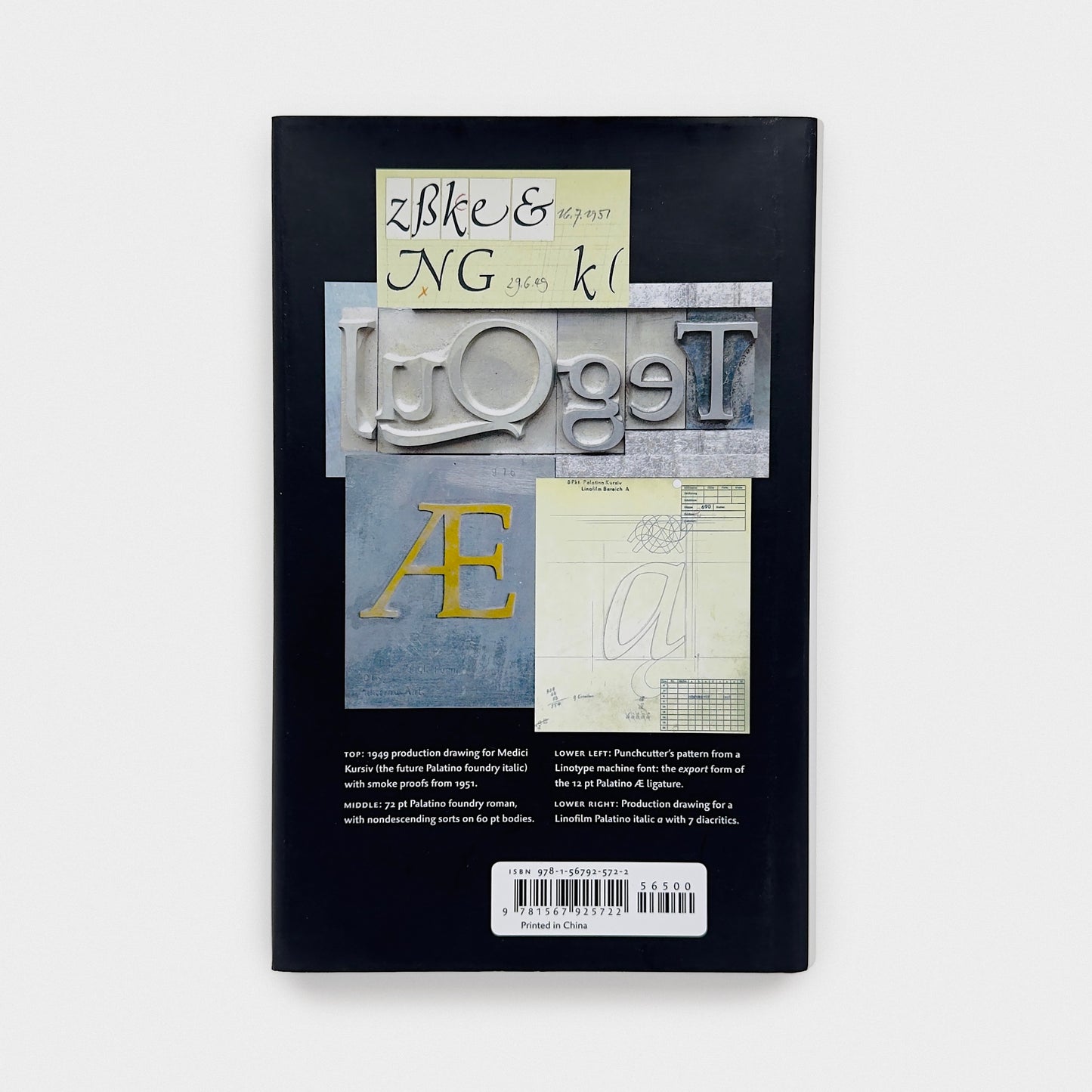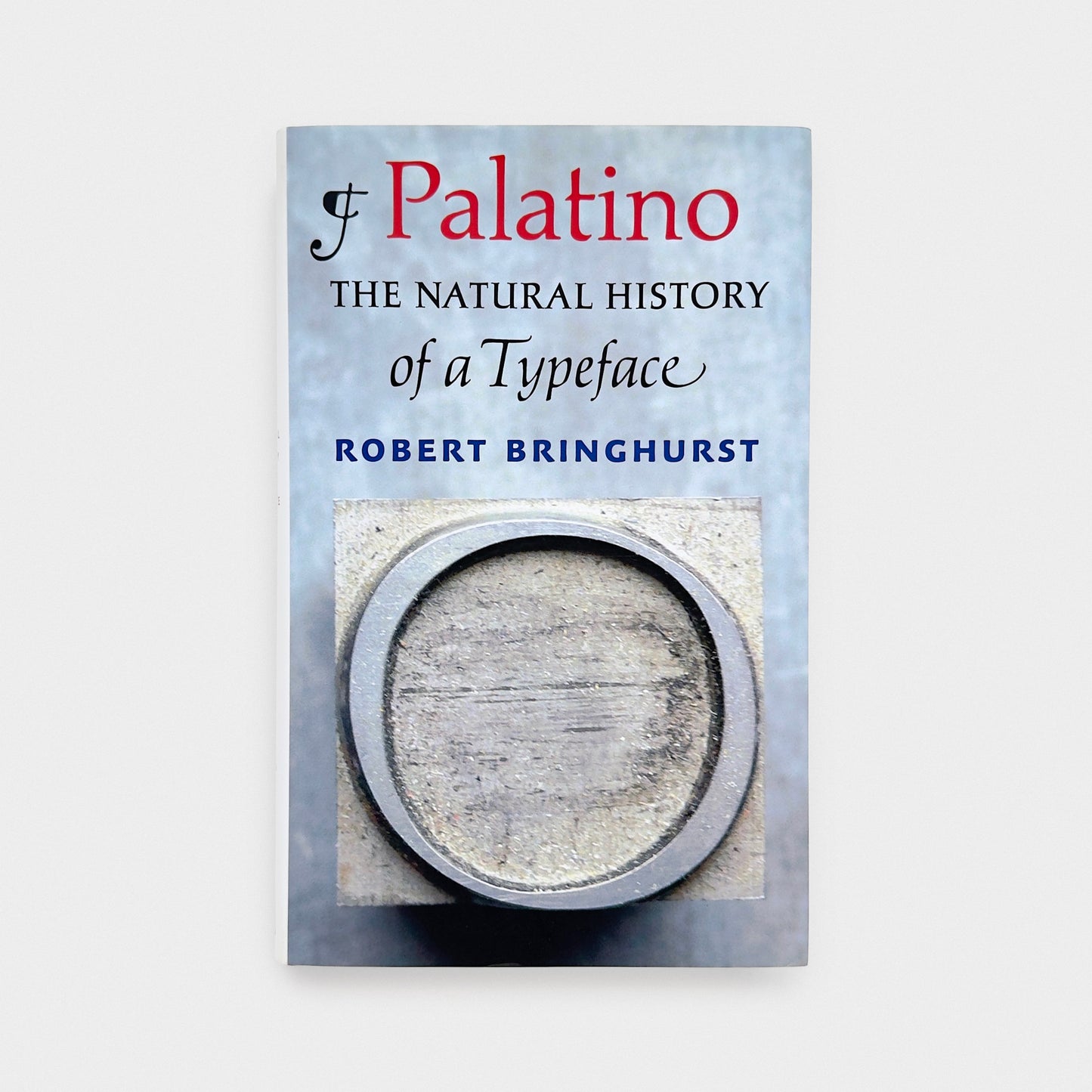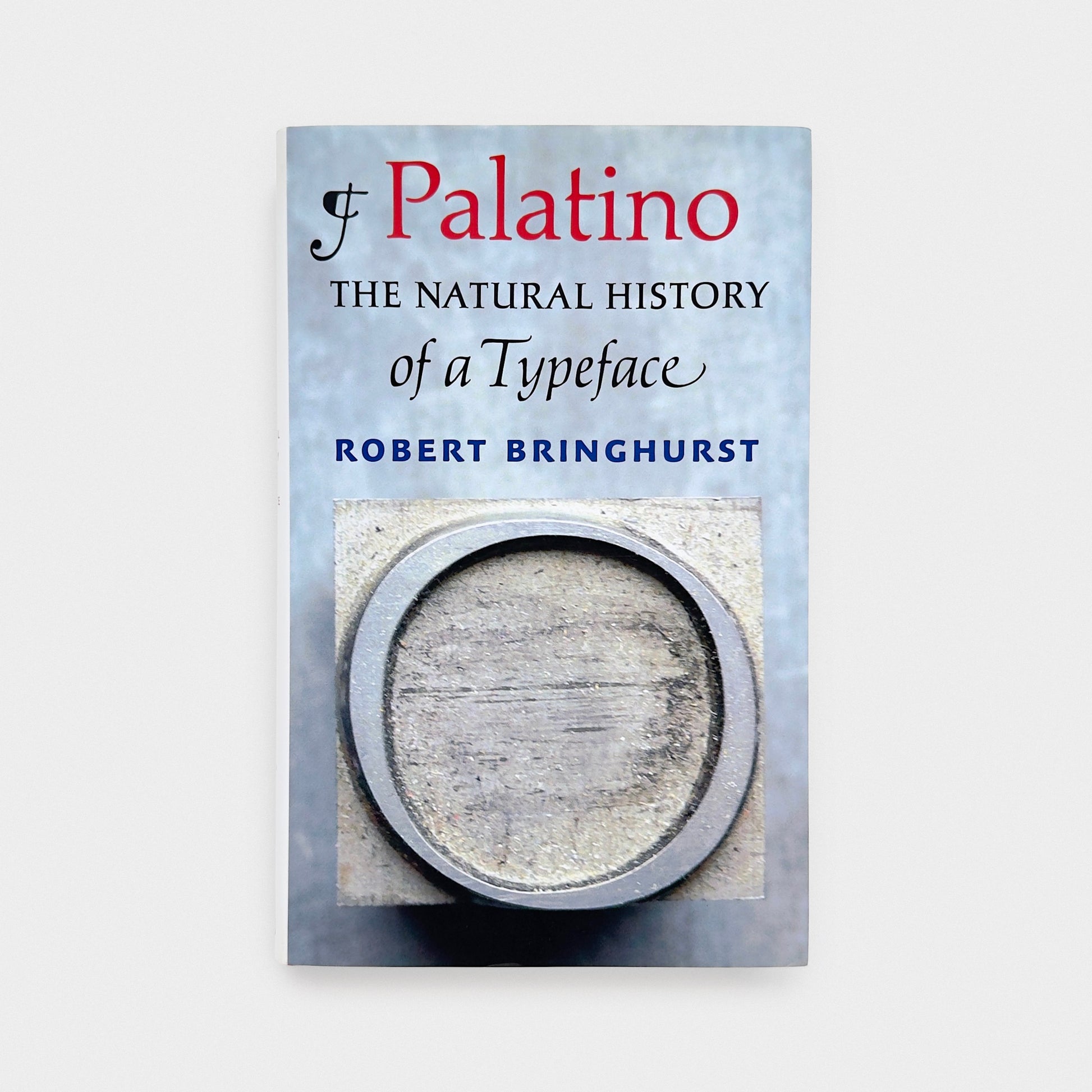
Palatino: The Natural History of a Typeface
Robert Bringhurst
Robert Bringhurst traces Palatino’s development, with all its infinite permutations, and often invisible refinements through a long and fascinating history of variations, imitations, and conflations―from hot metal, through the brief interlude of film setting and finally into the digital world. Included are many photographs and type specimens tracing the evolution of the typeface, its slight changes for the American market, and other nuances which highlight the genius of Hermann Zapf. This book is also an interesting look into the heyday of the Stempel Type foundry, where all of Zapf’s faces were cut. This wonderful book contains a fully illustrated account of Palatino and its extended family, including Michelangelo, Sistina, Aldus, Heraklit, Phidias, Zapf Renaissance, PostScript Palatino, Palatino and Aldus Nova, and Palatino Sans. Included with the text are over 200 illustrations of design sketches, working drawings, smoke proofs and test prints, matrices, foundry and Linotype patterns.